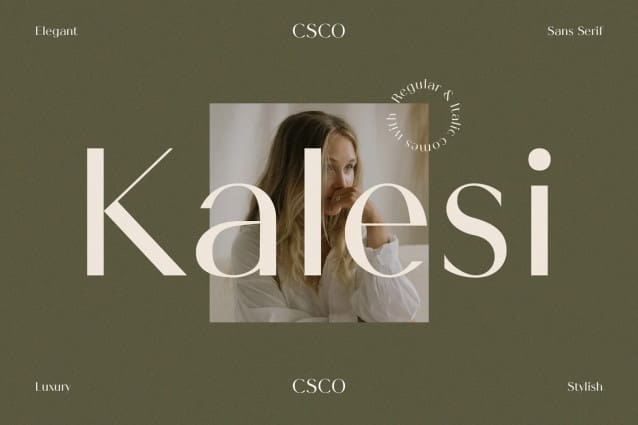
Kalesi Font
Kalesi Font – The Elegant Sans Serif Font strikes a perfect balance between modern simplicity and timeless sophistication. Its clean, sans-serif style features subtle contrasts that add a touch of refined elegance. Ideal for projects demanding a contemporary, minimalist aesthetic with a touch of class.
Whether it’s branding, web design, or editorial work, Kalesi Font effortlessly enhances your project’s appeal with its understated yet captivating look. With Kalesi, your designs exude contemporary elegance, leaving a lasting impression with its carefully crafted contrast and minimalist charm.